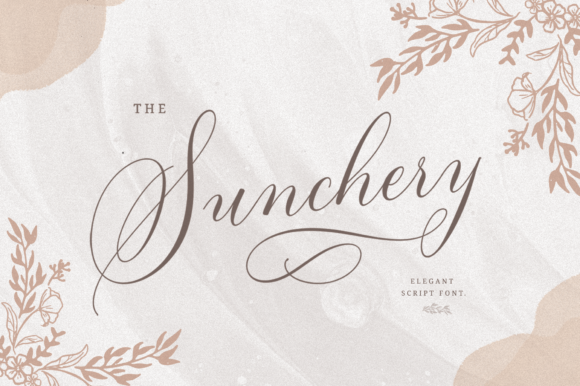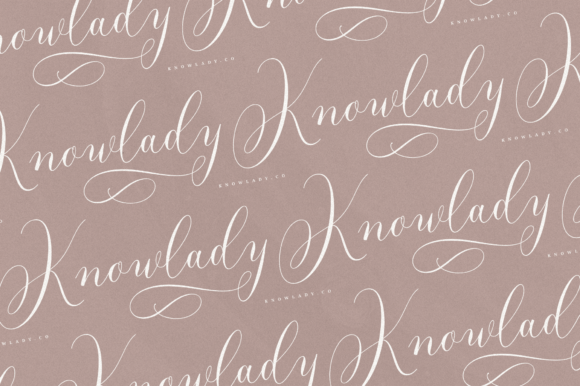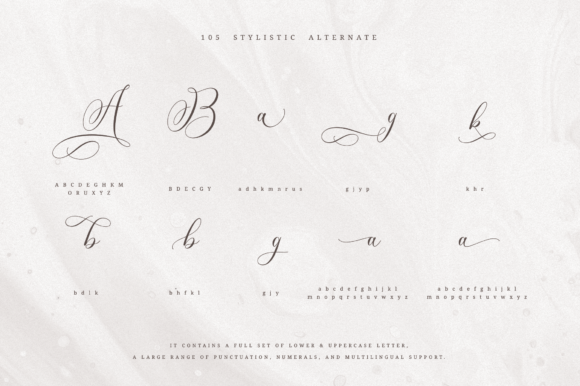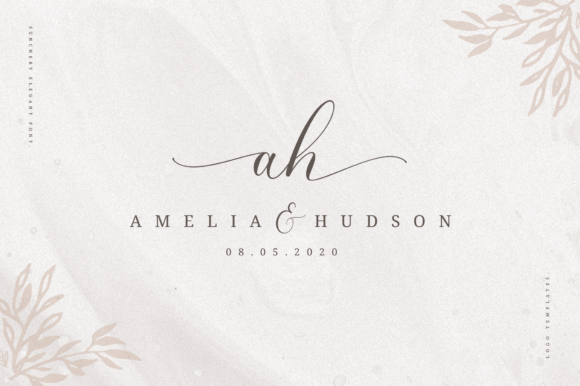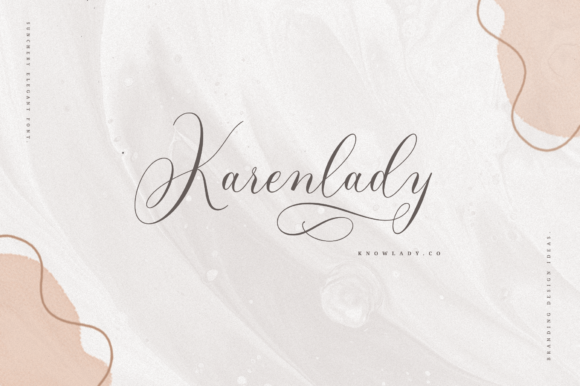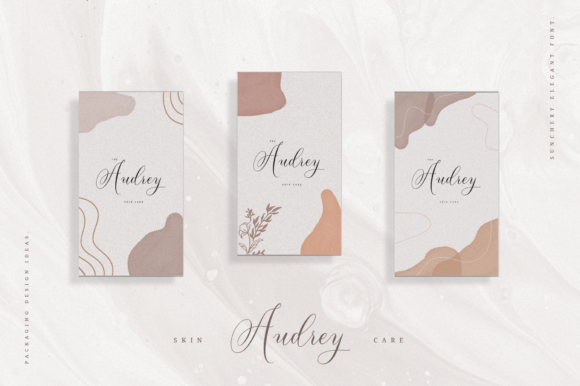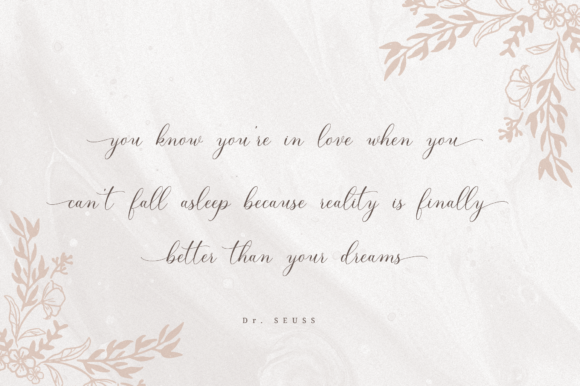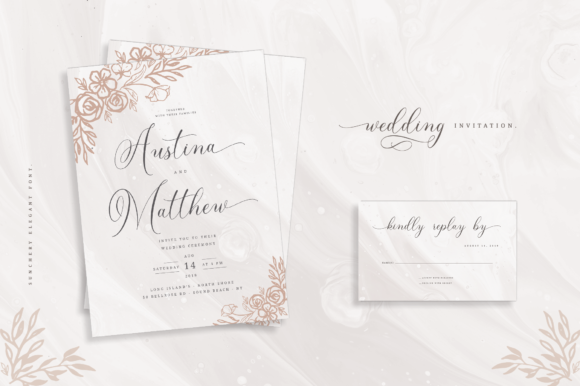
Sunchery Font
About Sunchery Font
Sunchery is a sweet and incredibly delicate handwritten font. It looks exquisite on wedding invitations, thank you cards, quotes, greeting cards, logos, business cards and every other design which needs a handwritten touch. Sunchery features a varying baseline, smooth lines, gorgeous glyphs and stunning alternates.